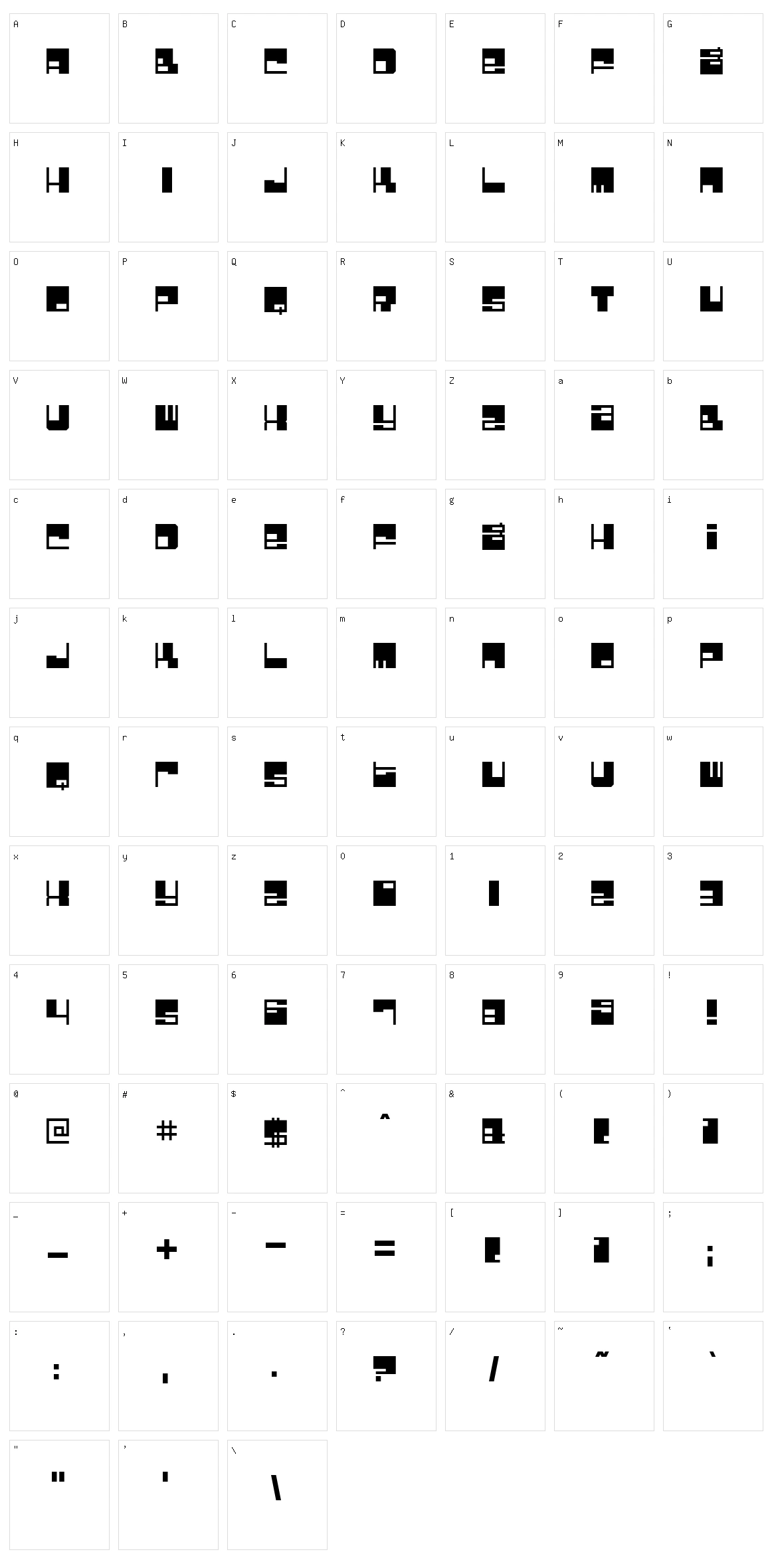
The free font Bomb Factory is carefully designed by dustBUST, showcasing a thoughtful balance of creativity and usability and falls under the Square font style. When you download the ZIP file, it contains only 10.75 KB of font files, making it lightweight and quick to download. Please review the license details below to understand permitted usage and distribution rights. If license information is not available, we recommend using this font for personal projects only or contacting the author directly for commercial usage permissions.